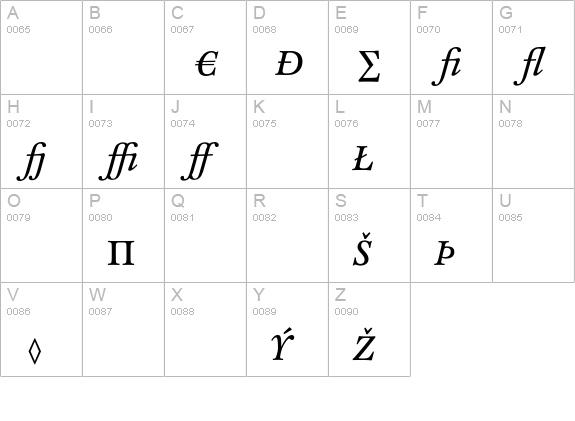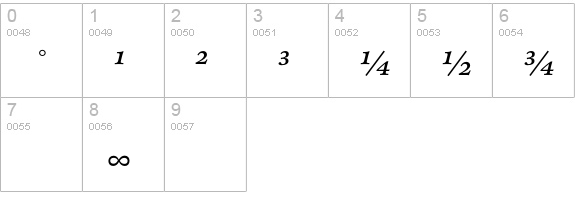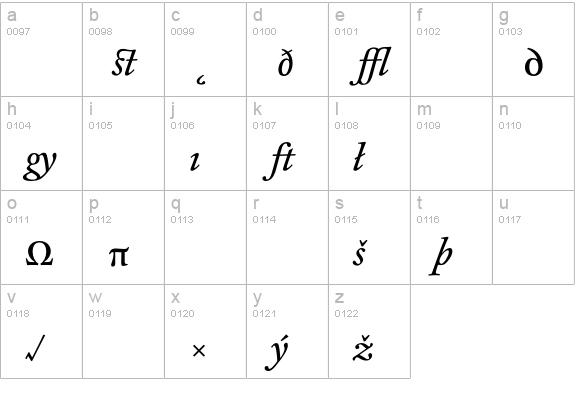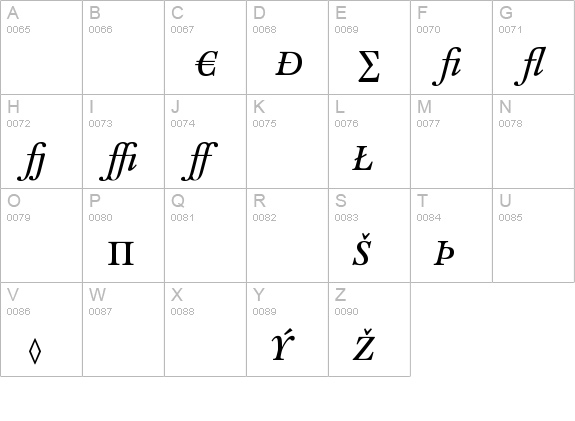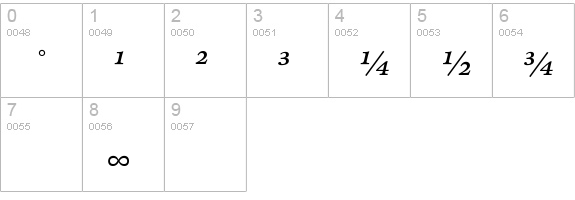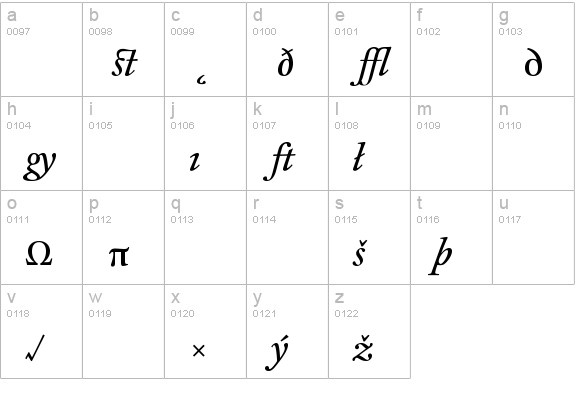
CliffordNine-ItalicExpert Font Details
CliffordNine-ItalicExpert font is a sleek and elegant typeface designed for those looking to add a touch of sophistication to their projects. With its unique italic style and expertly crafted letterforms, this font exudes a sense of grace and refinement. What sets CliffordNine-ItalicExpert font apart is its versatility – it can be used for a wide range of design projects, from branding and advertising to editorial and web design. Its precise details and sharp angles make it perfect for creating a modern and professional look. The best part? CliffordNine-ItalicExpert font is available for free download at FontsMarket.com. This means you can easily access this high-quality font and elevate your designs without breaking the bank. So why wait? Download CliffordNine-ItalicExpert font today and take your projects to the next level!